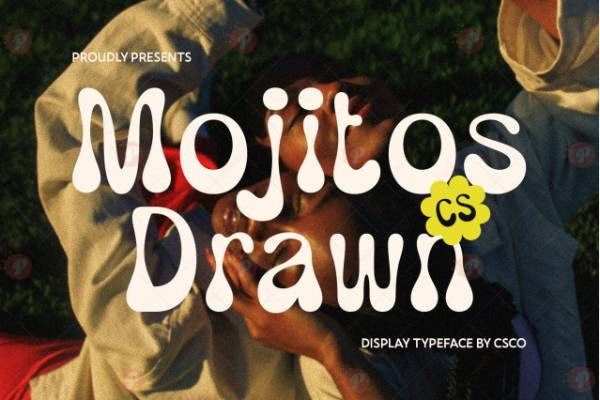
The CS Mojitos Drawn Font is a hand-drawn, fun, and creative typeface, perfect for posters, social media graphics, logos, branding, greeting cards, and display typography. Its playful and organic style adds charm, energy, and personality to any project.
Ideal for digital and print designs, CS Mojitos Drawn gives your work a handcrafted and lively feel, making your designs stand out with uniqueness and creativity.
Style: Hand-Drawn / Fun / Display Typeface
Perfect for: Posters, Social Media Graphics, Logos, Branding, Greeting Cards & Display Typography
Add a lively and artistic touch to your designs with the CS Mojitos Drawn Font.